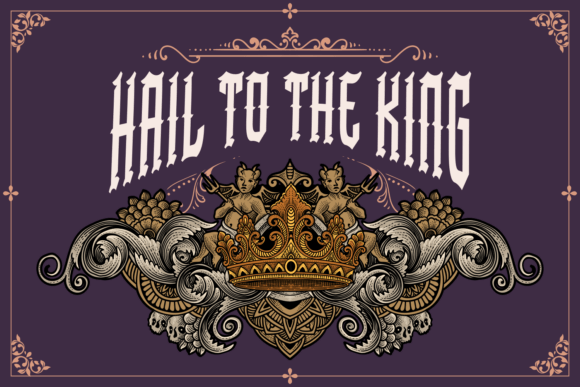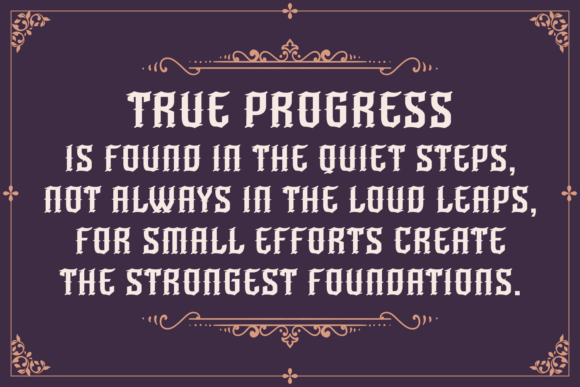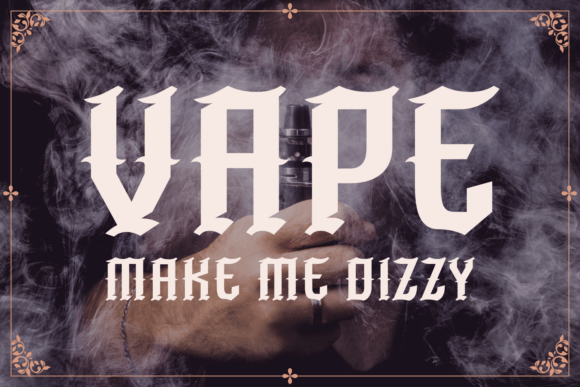
Introduction to Giant Leaps Font
As designers, we’ve all been there – staring at a blank canvas, trying to bring our creative vision to life. The spark of inspiration strikes, and we dive headfirst into a new project, eager to see it come to fruition. For those who crave a design resource that exudes power and elegance, the Giant Leaps Font is the perfect catalyst for your next high-quality creative project.
This bold and dynamic blackletter font is a masterclass in blending tradition with modernity, boasting strong vertical strokes and sharp angular serifs that evoke a sense of medieval grandeur. Whether you’re working on a vintage poster, beer label, or tattoo-inspired branding, the Giant Leaps Font is an invaluable asset for any designer looking to add a commanding and historical presence to their work.
With its excellent legibility and decorative details, this versatile font is a must-have for any design arsenal. Plus, with the option for a transparent background, you can easily incorporate it into your custom product packaging and logos, making it a valuable addition to any creative project.
Key Features of Giant Leaps Font
- High-quality vector design, ideal for creative projects requiring a professional touch.
- Unique, bold, and playful design elements that set it apart from standard fonts, making it perfect for designers seeking a creative edge.
- Easy to customize and edit, allowing designers to tailor the font to fit their specific project needs.
Honest Review: Giant Leaps Font
I recently came across the Giant Leaps Font, and I must say it’s an exciting addition to any designer’s toolkit. As a creative project, this font has the potential to elevate your designs to the next level.
Here’s what I like about the Giant Leaps Font:
- ✨ Unique and playful style that’s perfect for modern designs
- ✨ High-quality font files that are easy to work with
- ✨ Transparent background, allowing for seamless integration into your designs
However, I do have a few concerns:
- ⚠️ Limited character set, which might be a drawback for more complex designs
- ⚠️ Not ideal for small font sizes, as the lines can become quite thin
Overall, I think the Giant Leaps Font is a great addition to any designer’s collection. With its high-quality files and unique style, it’s perfect for creative projects that require a bit of flair. Just be mindful of its limitations, and you’ll be well on your way to creating stunning designs.
Getting the Most Out of the Font
To maximize the impact of the Giant Leaps Font, experiment with different font sizes, colors, and combinations to achieve the desired visual effect.
The Giant Leaps Font is suitable for a variety of creative projects, including:
- Typography-based art
- Brand identity design
- Marketing materials